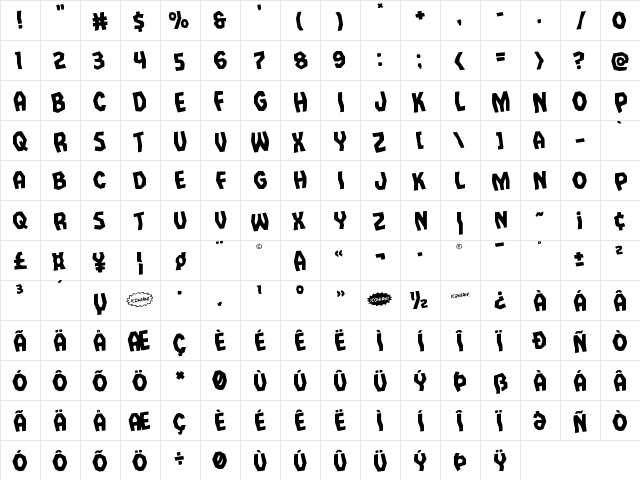
Vampire Bride Rotated Regular
Design Context for Vampire Bride Rotated Typeface
Vampire Bride Rotated is a composed and adaptable typeface that performs quietly and consistently across a wide range of design contexts.